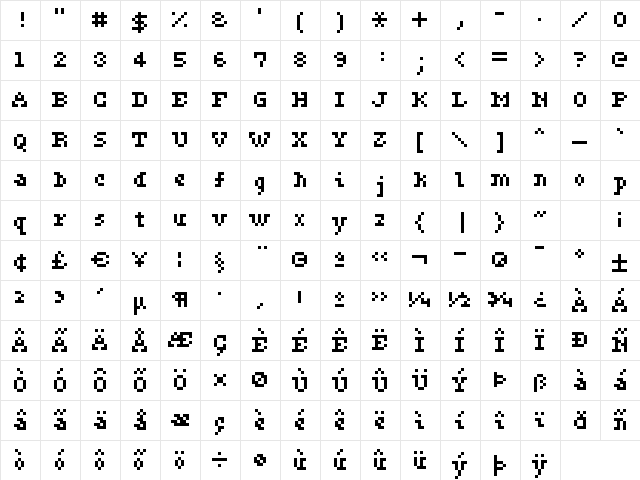
ceriph 05_56 Regular
Design Context for ceriph 05_56 Typeface
ceriph 05_56 offers clean, dependable letterforms without strong stylistic allegiance, making it a practical choice for designers who need flexibility.